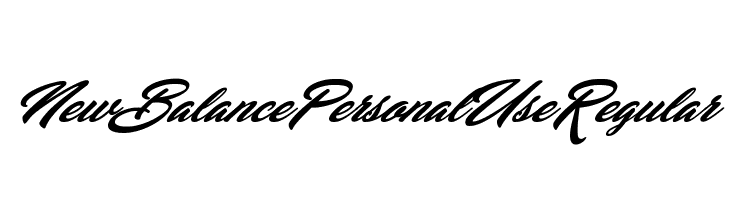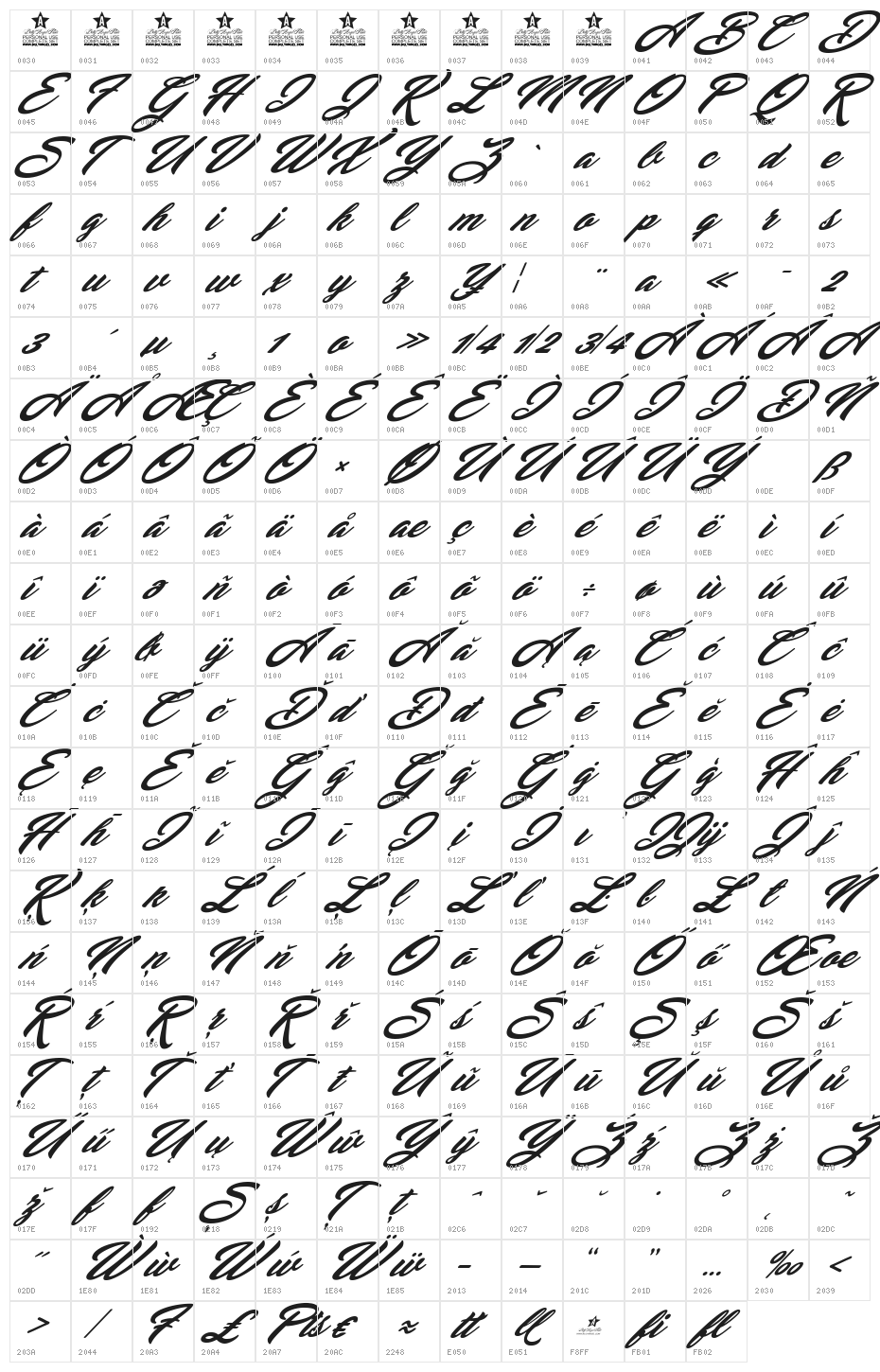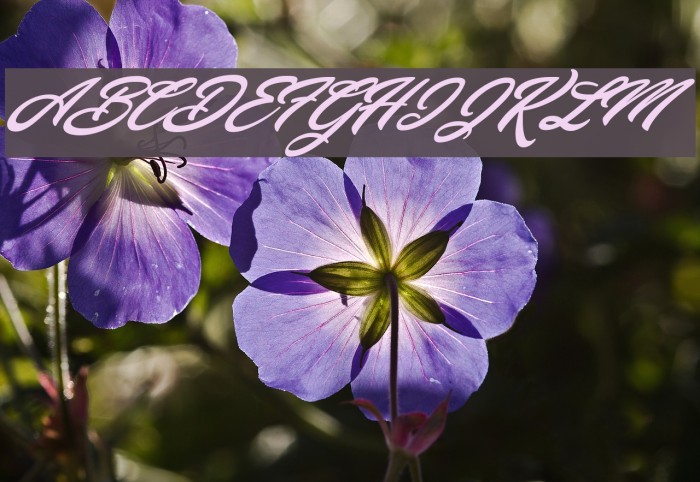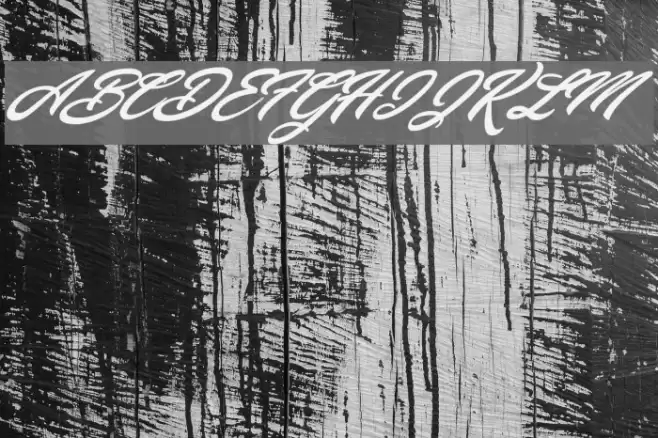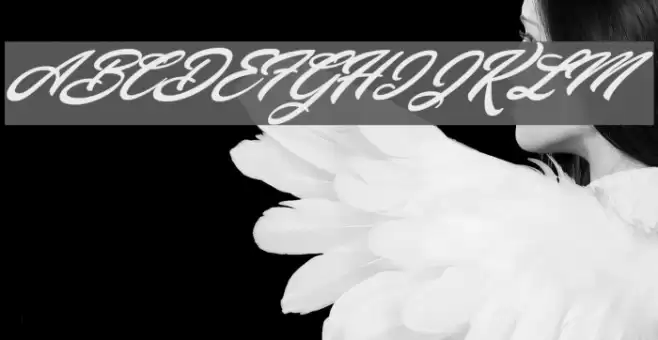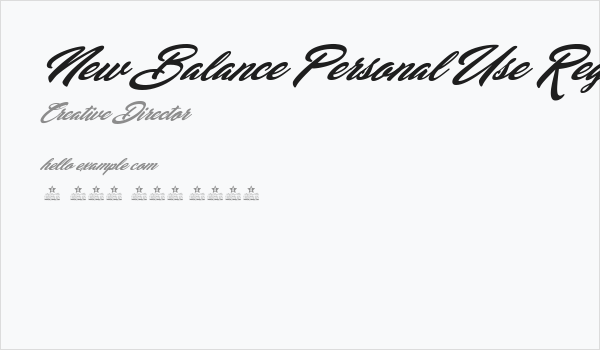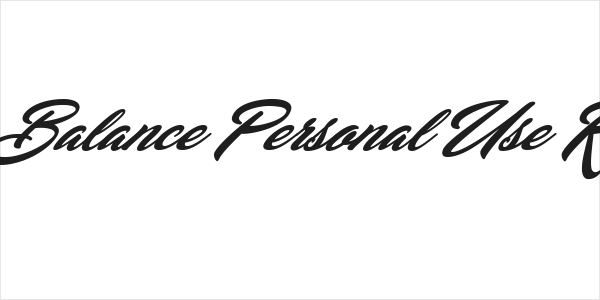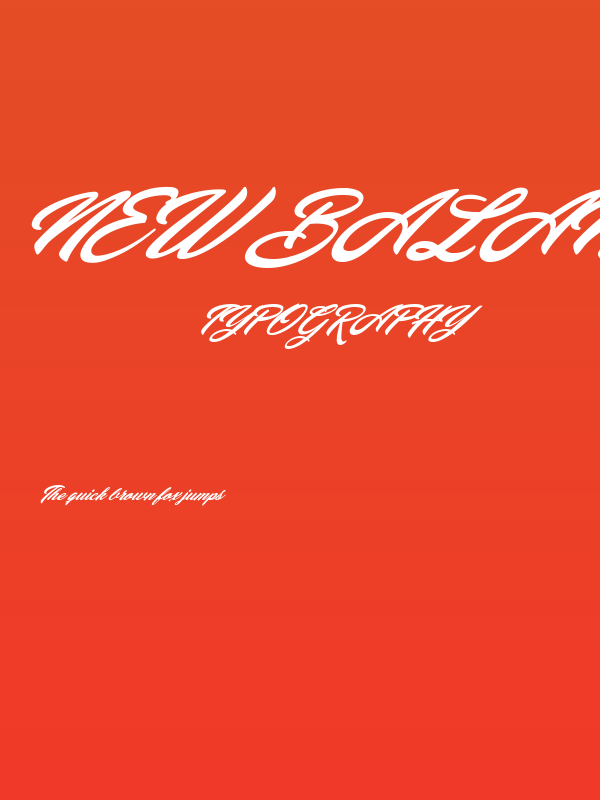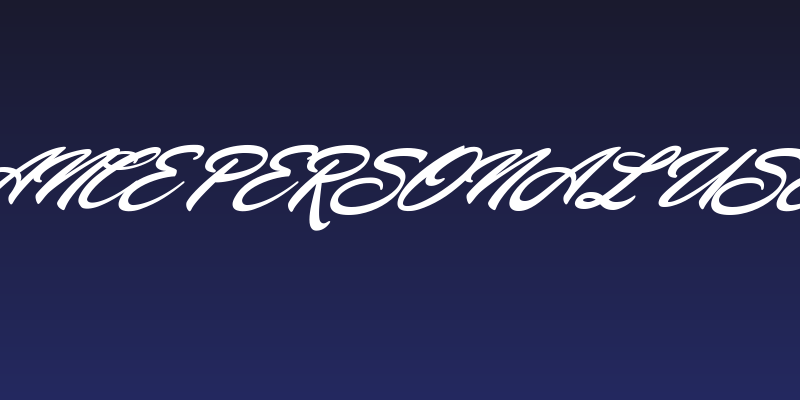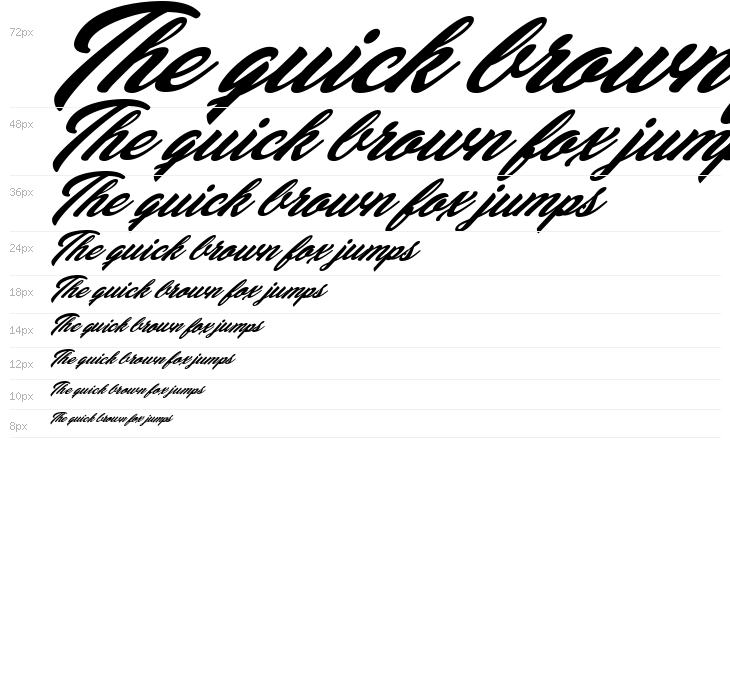
New Balance Personal Use Regular Font
New Balance Personal Use Regular Description
This font features a bold and elegant script style, characterized by its flowing, cursive letters that exude a sense of sophistication and flair. The uppercase letters are particularly ornate, with sweeping curves and flourishes that give them a dynamic and lively appearance. The lowercase letters maintain a consistent style, with smooth connections between characters, enhancing the font's fluidity. The numbers and special characters are crafted with the same attention to detail, ensuring a cohesive look across all elements. This font is ideal for projects that require a touch of elegance and personality.
| Proposed Projects | Wedding invitations, branding for luxury products, elegant signage, and personal stationery. |